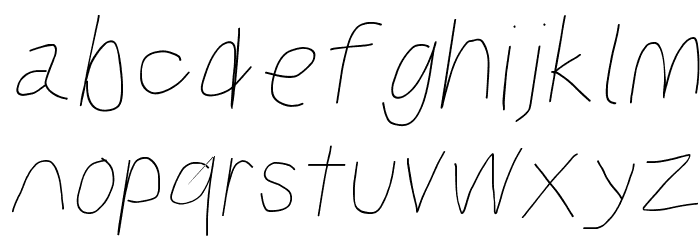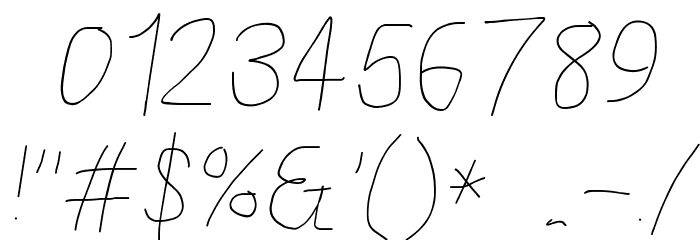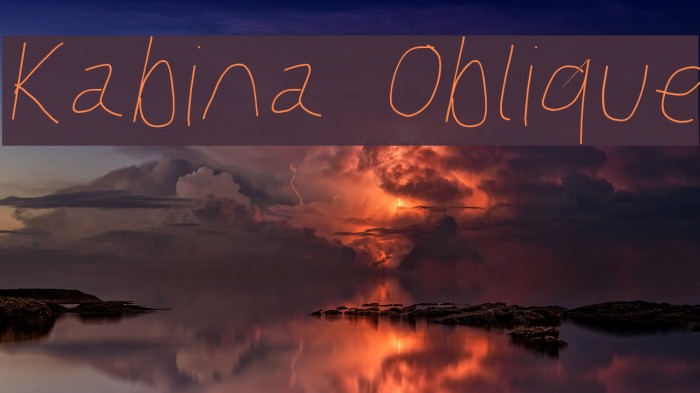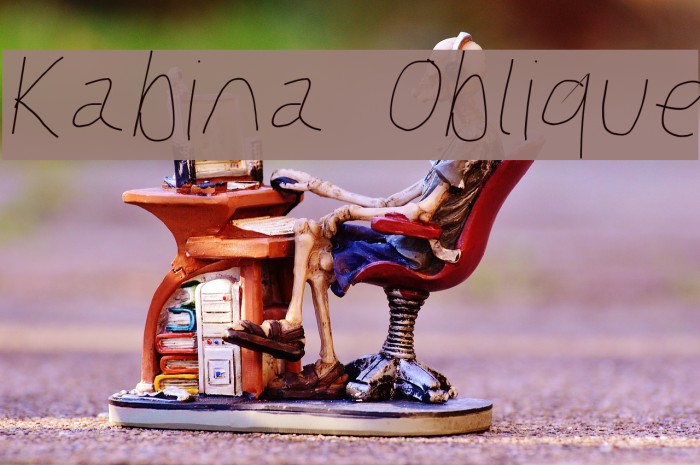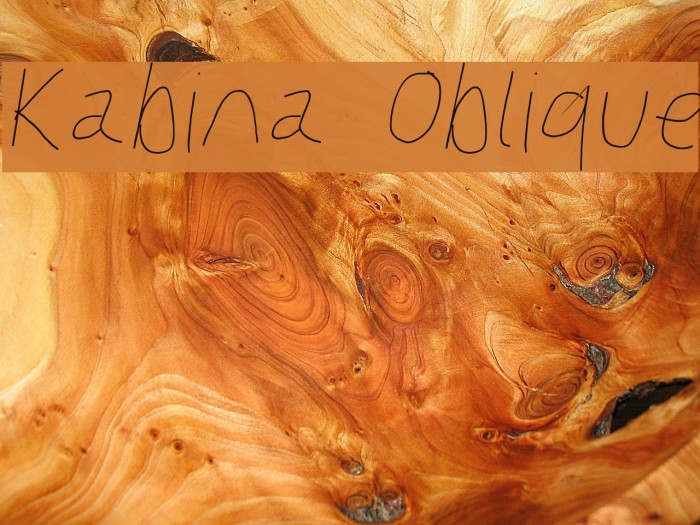
Kabina Oblique Font
This font features a sleek, handwritten style with a slight slant, giving it an oblique appearance. The characters are thin and elongated, with a consistent stroke width that adds to its modern and casual feel. The uppercase letters are tall and narrow, while the lowercase letters maintain a similar height, creating a harmonious balance. The numerals are clear and easy to read, matching the overall aesthetic. Special characters are included, maintaining the same thin and elegant style. This font is perfect for projects that require a personal touch, such as invitations, greeting cards, or creative branding.
A sleek, handwritten oblique font with thin, elongated characters.
- Proposed Projects: Ideal for invitations, greeting cards, personal branding, and creative projects.